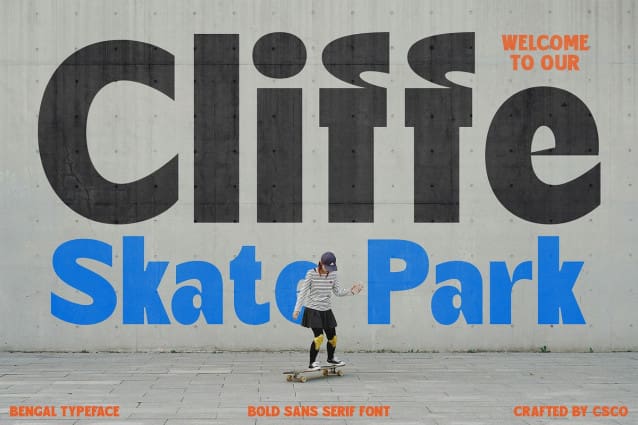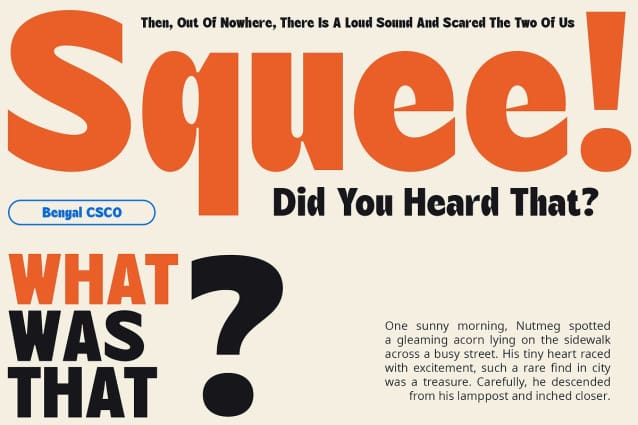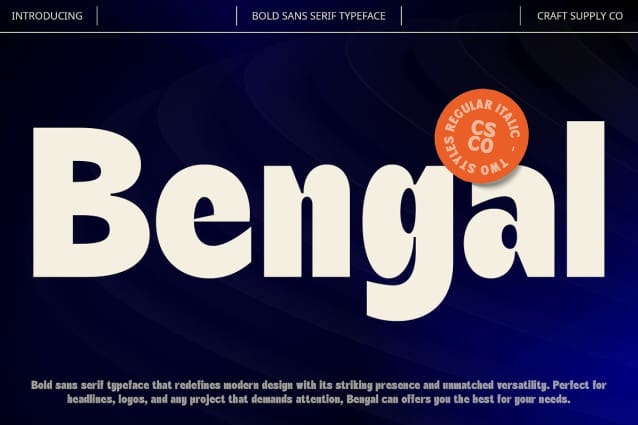
Bengal Font
Bengal Font is a bold sans serif font with a retro vibe, perfect for designs that evoke a sense of nostalgia. Its strong lines and vintage charm make it ideal for a wide range of creative projects.
With its striking presence and classic appeal, Bengal Font offers a fresh take on traditional sans serif fonts. The bold design and retro elements create a captivating and nostalgic look, ideal for posters, branding, and other projects that need a touch of vintage flair.
Whether you’re designing a throwback advertisement or creating a vintage-inspired logo, Bengal is sure to make an impression. Its bold style and retro vibe make it perfect for displays that demand attention and evoke a sense of nostalgia.
Despite its distinctive appearance, Bengal Font is versatile and easy to use. The font works well in both large and small sizes, making it suitable for a variety of applications, from headlines and banners to body text and more. With its blend of bold design and retro charm, Bengal adds a captivating and nostalgic touch to any design.